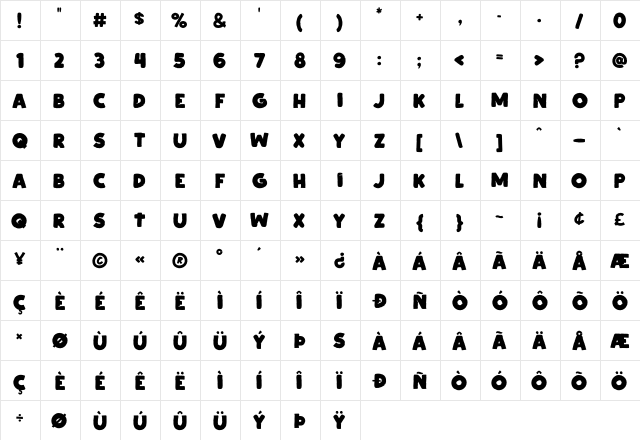
Cipitillo Regular
| Foundry | Don Marciano |
| Designer | Juan Miguel Castillo |
Design Context for Cipitillo Typeface
Cipitillo offers clean, dependable letterforms without strong stylistic allegiance, making it a practical choice for designers who need flexibility.